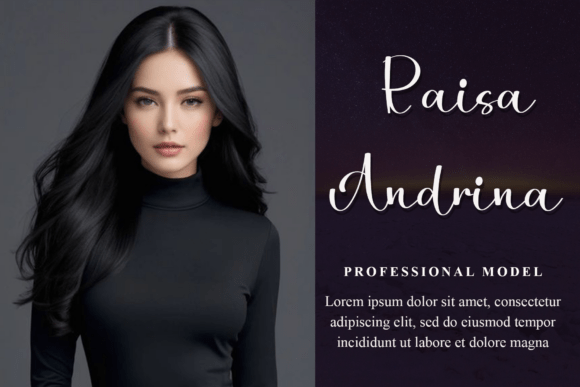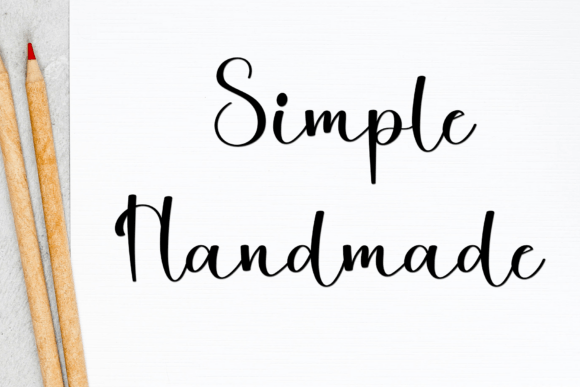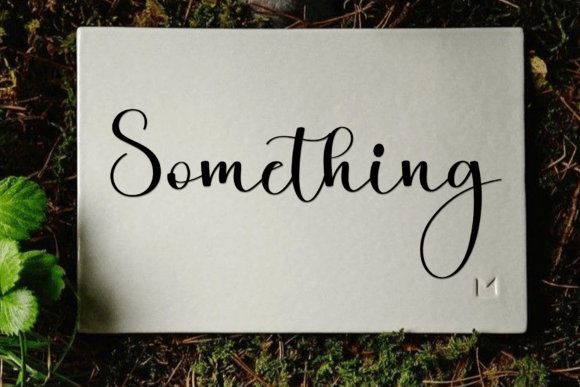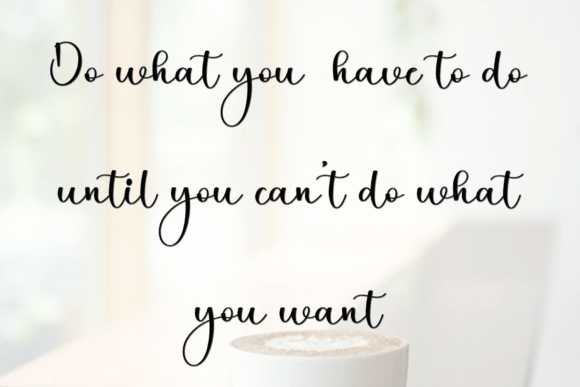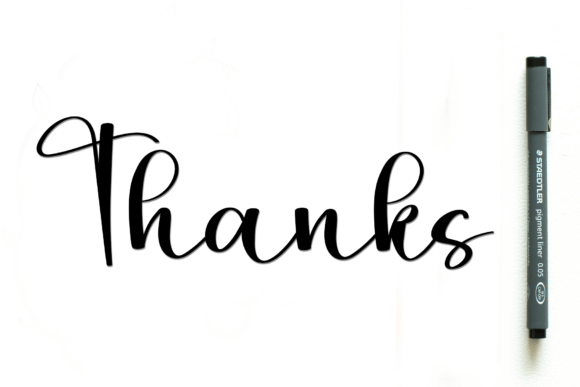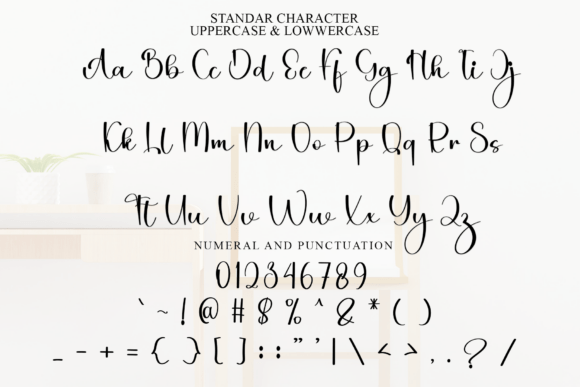
Daddy Handsome Font: Elevate Your Designs with Elegance and Masculinity
In the world of typography, fonts play a crucial role in conveying the tone and personality of a design. For designers and crafters looking for a stylish and versatile font, Daddy Handsome is an excellent choice. This calligraphy script font strikes the perfect balance between masculinity and grace, making it ideal for a wide range of applications.
What Makes Daddy Handsome Font Stand Out?
Daddy Handsome is a modern handwritten script font that boasts flowing strokes and a unique character. Its stylish and elegant design makes it perfect for projects that require a touch of sophistication. Whether you’re creating greeting cards, fashion branding, personal stationery, or wedding designs, this font is sure to impress.
Key Features of Daddy Handsome Font
- Masculine yet Elegant: Daddy Handsome font balances masculinity with a touch of elegance, making it versatile for various design projects.
- Flowing Strokes: The font features beautiful, flowing strokes that add a dynamic and artistic feel to any text.
- Modern Handwritten Style: With its modern handwritten style, Daddy Handsome gives your designs a fresh and contemporary look.
- High Versatility: Suitable for a wide range of applications, including greeting cards, fashion branding, personal stationery, and wedding designs.
Daddy Handsome font is designed to bring a touch of class and personality to your creative projects. Here are some ideal uses for this versatile font:
Greeting Cards
Create stunning greeting cards for special occasions like birthdays, anniversaries, or holidays. The elegant and masculine style of Daddy Handsome ensures your cards stand out and make a lasting impression.
Fashion Branding
For fashion brands looking to establish a sophisticated and stylish identity, Daddy Handsome is an excellent choice. Use it for logos, packaging, or marketing materials to convey a sense of luxury and modernity.
Personal Stationery
Elevate your personal stationery with a touch of elegance. Whether it’s custom notebooks, journals, or letterheads, Daddy Handsome font adds a refined and professional look to your stationery.
Wedding Design
Make your wedding designs truly special with Daddy Handsome. Use it for wedding invitations, programs, or place cards to add a touch of romance and sophistication to your event.
Why Choose Daddy Handsome Font?
Choosing the right font for your design project can be overwhelming, but Daddy Handsome stands out for several reasons:
- Unique Style: Its distinctive calligraphy script style ensures your designs are unique and eye-catching.
- Ease of Use: Daddy Handsome is easy to use and works well across various design platforms.
- Timeless Appeal: The font’s classic yet modern design ensures it remains relevant for years to come.
Daddy Handsome font is a stylish and versatile calligraphy script font that brings a perfect balance of masculinity and elegance to your designs. With its flowing strokes and modern handwritten style, it’s ideal for a variety of creative projects, from greeting cards and fashion branding to personal stationery and wedding designs. Elevate your designs with the distinctive and sophisticated look of Daddy Handsome.
Whether you’re a designer or a crafter, Daddy Handsome font is sure to become a valuable addition to your toolkit. Its unique style, ease of use, and timeless appeal make it an excellent choice for anyone looking to add a touch of class and personality to their projects.